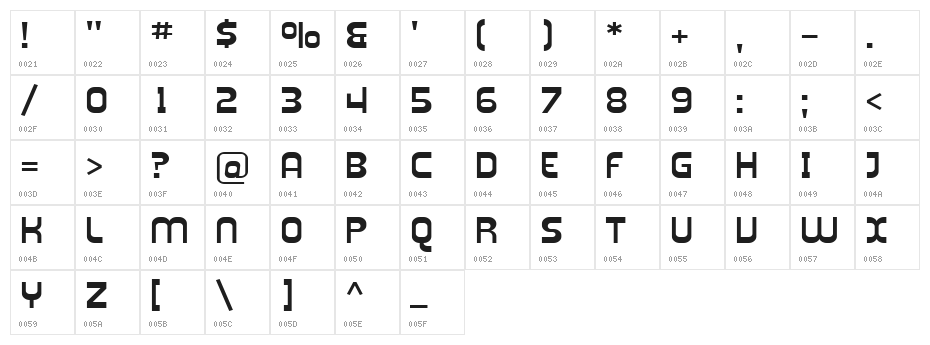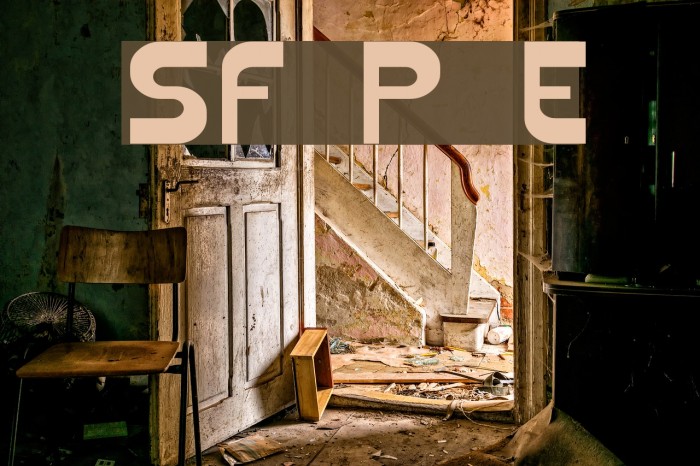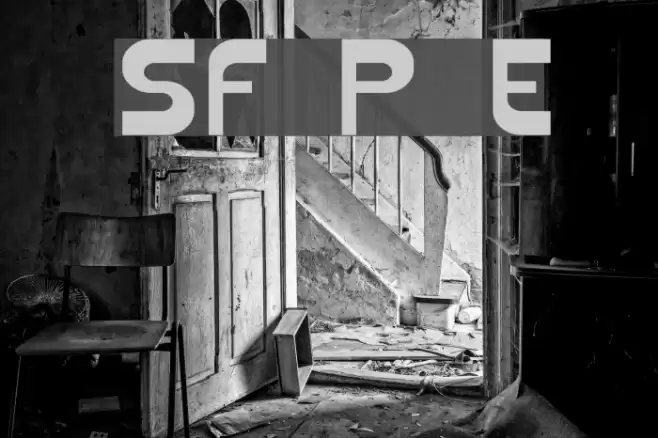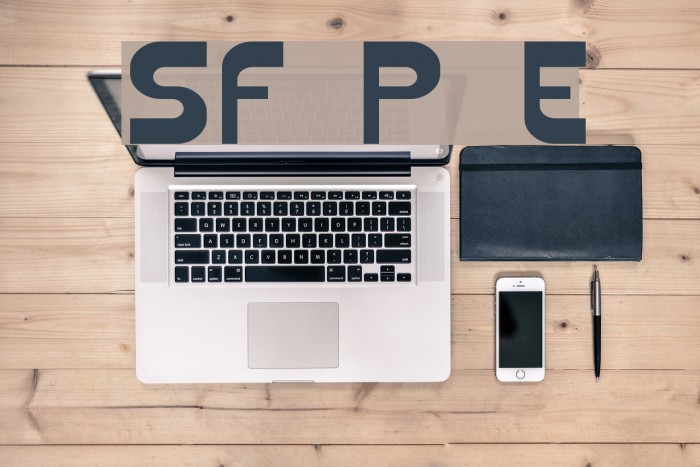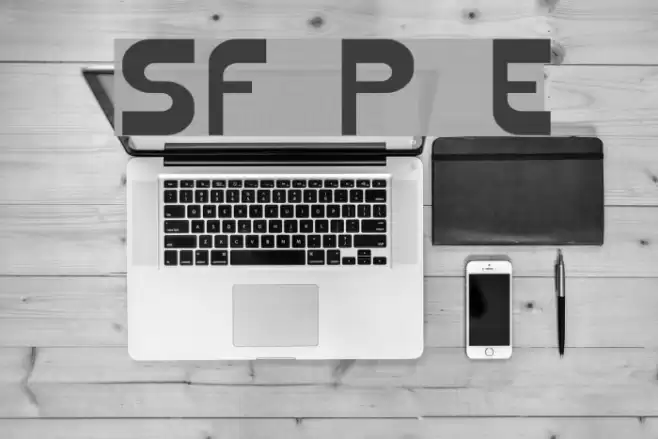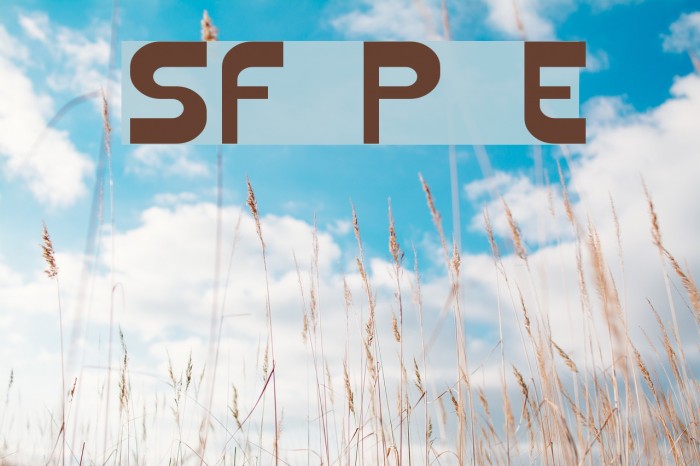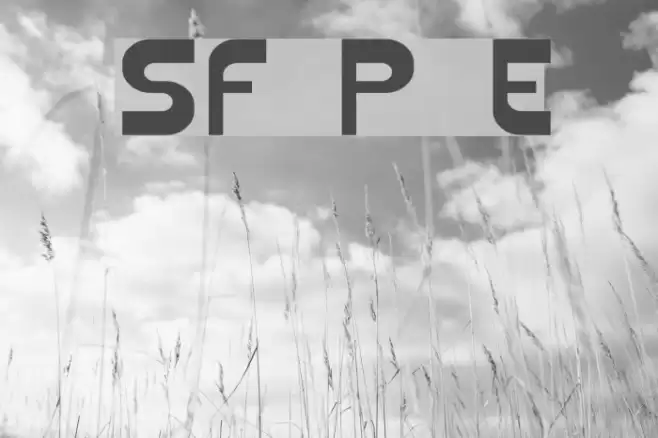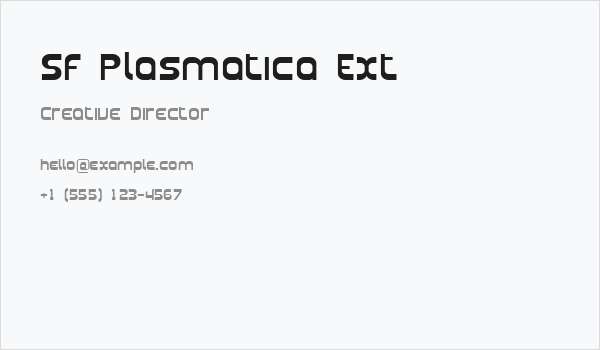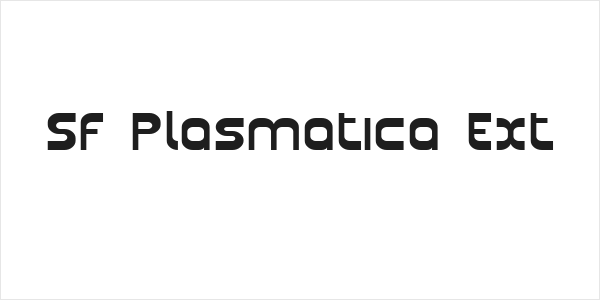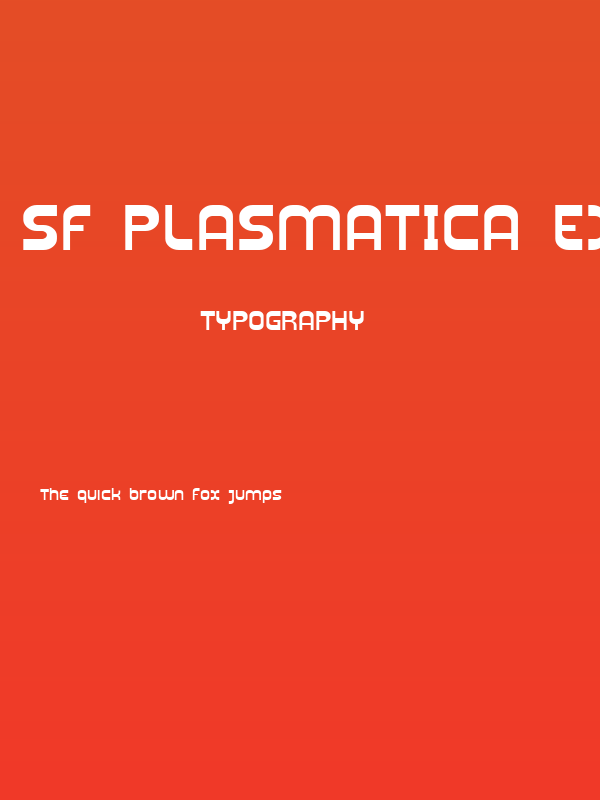
SF Plasmatica Ext Font
SF Plasmatica Ext Description
This font features a futuristic and geometric design with rounded edges and a bold presence. The uppercase and lowercase letters maintain a consistent width, creating a uniform appearance. The numerals are distinct and easily readable, while the special characters complement the overall style. The font's clean lines and modern aesthetic make it suitable for digital interfaces and technology-themed projects. Its boldness ensures visibility and impact, making it ideal for headlines and display purposes.
Use CaseHeadlines, Logos, Digital Interfaces
Proposed ProjectsIdeal for technology branding, digital interfaces, video game design, and futuristic-themed posters.